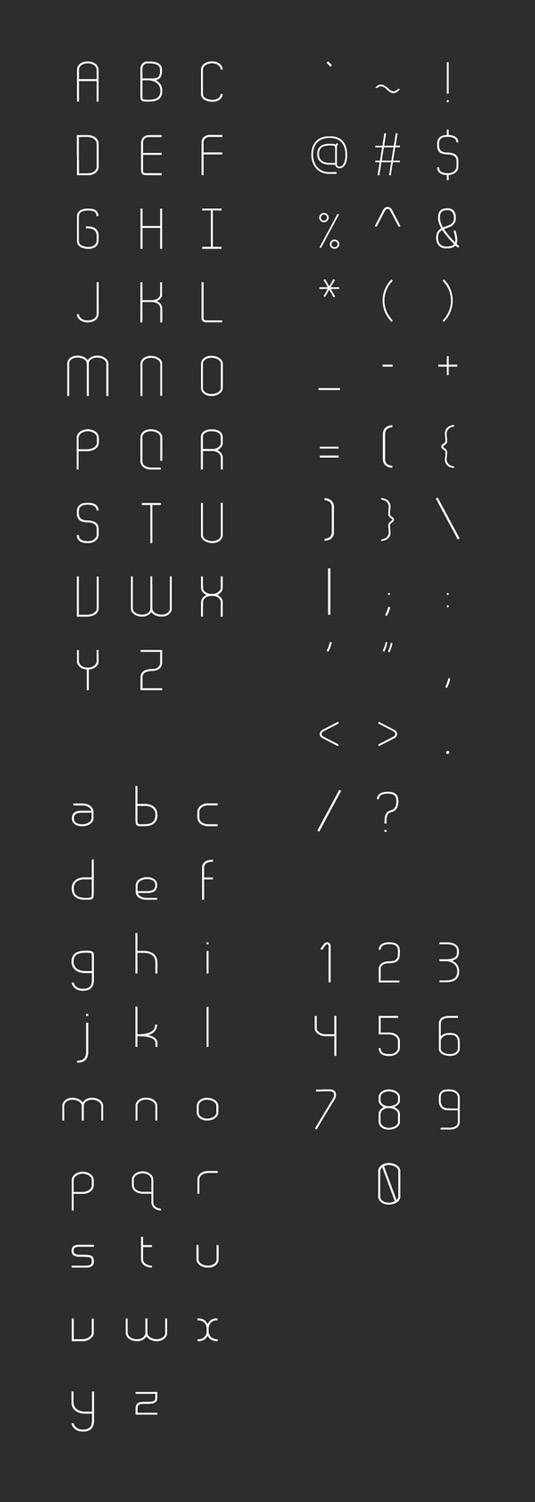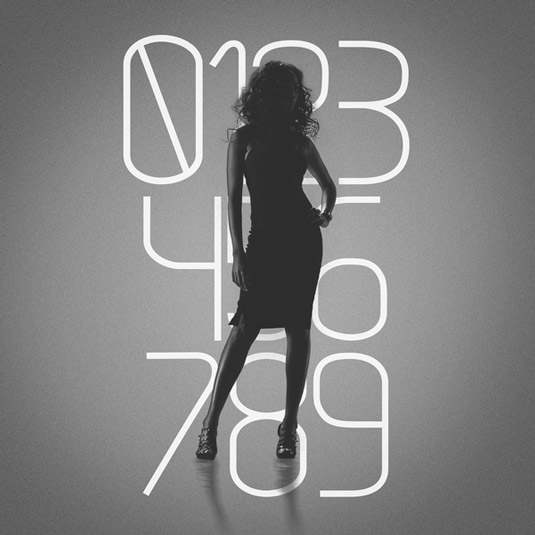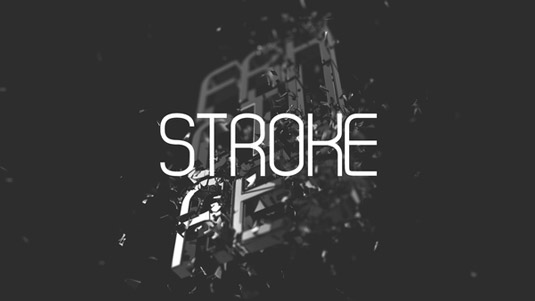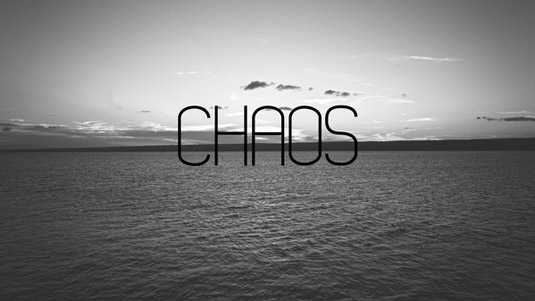
Font of the day: Stroke
Stroke from The Kinetic
Today's font of choice Stroke was created by the team at full service production house The Kinetic. With elegant curves and clean lines, Stroke is great for headlines, posters and much more.